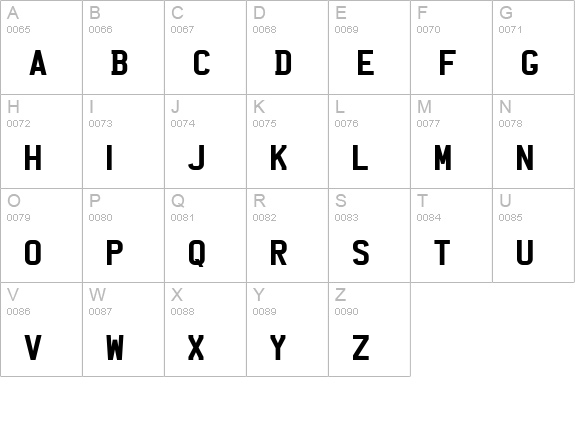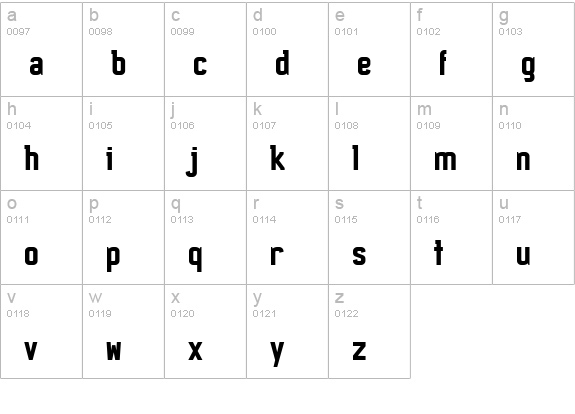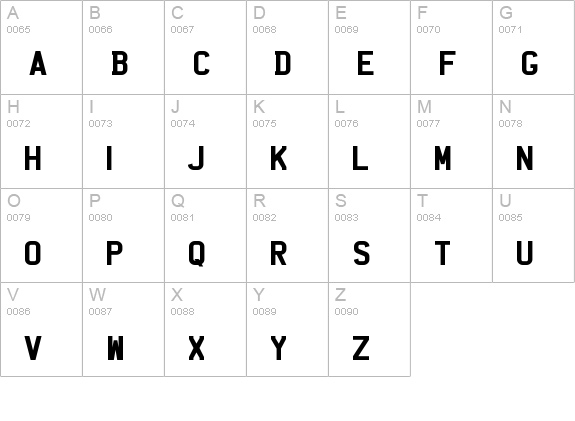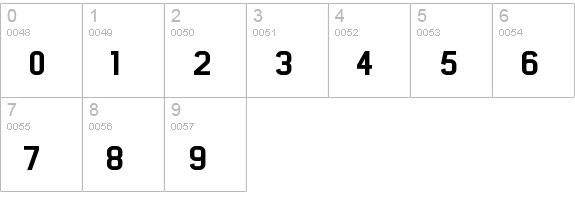
Licenz Plate Font Details
Introducing Licenz Plate font, a sleek and modern typeface perfect for adding a touch of sophistication to any design project. With its clean lines and bold letterforms, Licenz Plate exudes a sense of style and professionalism. This versatile font is ideal for a wide range of applications, from branding to web design to print materials. What sets Licenz Plate apart is its unique blend of classic elegance and contemporary flair, making it the perfect choice for those looking to make a statement with their typography. Whether used for headlines, logos, or body text, Licenz Plate will make your message stand out and leave a lasting impression on your audience. Best of all, Licenz Plate is available for free download at FontsMarket.com, making it accessible to designers of all levels. So why wait? Add Licenz Plate to your font collection today and take your designs to the next level with this stylish and versatile typeface.